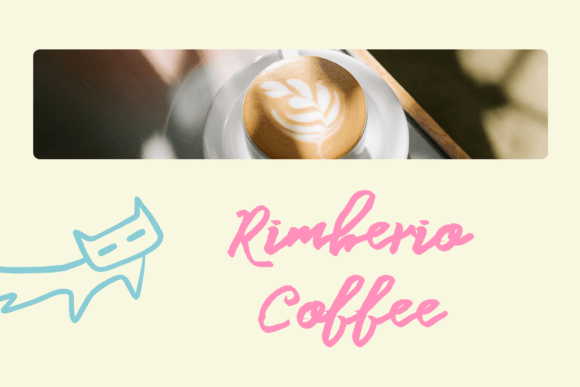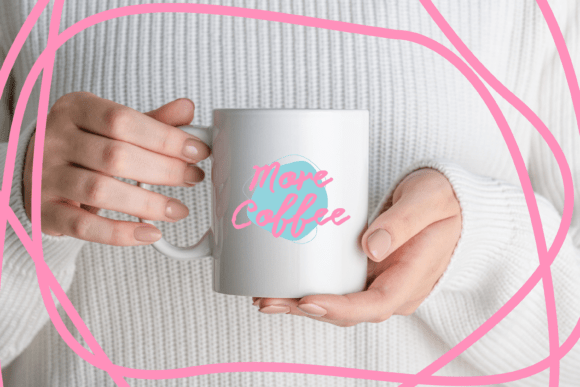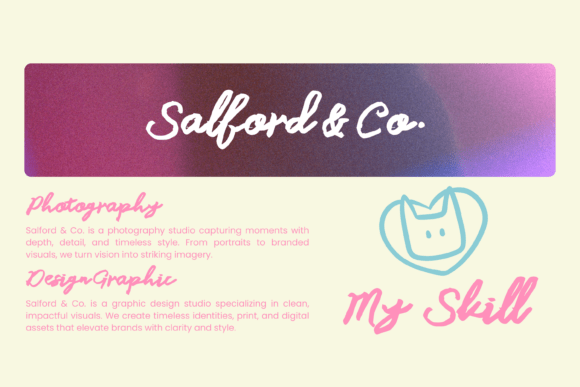
Introduction to Sebda Font
You know that feeling when you’re working on a creative project and you just can’t seem to find the right font to match your vision? You’ve tried scrolling through countless options, but nothing seems to capture the essence of your design. That’s where the Sebda Font comes in – a modern script font that’s as versatile as it is stylish.
Designed to mimic the look of a bold ink marker, Sebda Font brings a personal, handcrafted feel to your designs that’s perfect for branding, quotes, packaging, posters, and more. With its natural flow and expressive strokes, this font is a game-changer for designers looking to add a touch of high-quality elegance to their work.
Key Features of Sebda Font
- High-quality design resource ideal for creative projects, offering a unique and stylish touch.
- Sebda Font features a transparent background, making it perfect for overlaying on images or videos.
- High-resolution font, ideal for use in large-scale designs, such as billboards or movie titles.
- Designed to be highly legible, even at small font sizes, making it suitable for a variety of applications, including body text and headings.
Honest Review: Sebda Font
As a designer, I’m always on the lookout for high-quality design resources to elevate my creative projects. Recently, I came across the Sebda Font, and I’m excited to share my honest review with you.
- ✨ Unique and modern design style that adds a touch of sophistication to any project
- ✨ High-quality font that’s perfect for creative projects, including digital designs and print materials
- ✨ Transparent background makes it easy to use on any background, adding versatility to its use
- ⚠️ Limited font styles and weights, which may not be ideal for complex design projects
Overall, I think the Sebda Font is a solid design resource that’s perfect for simple to medium-complexity projects. Its unique design style and high-quality rendering make it a great addition to any design arsenal. While it may have some limitations, it’s definitely worth considering for your next creative project.
Tips for Getting the Most Out of Sebda Font
Here are some tips to get the most out of Sebda Font: use it with a transparent background for a more modern look, experiment with different font sizes and styles, and pair it with other high-quality design resources for a cohesive look.
Sebda Font is commonly used for various design projects, including logos, business cards, and marketing materials. Its high-quality design and transparent background make it a popular choice for designers and non-designers alike.